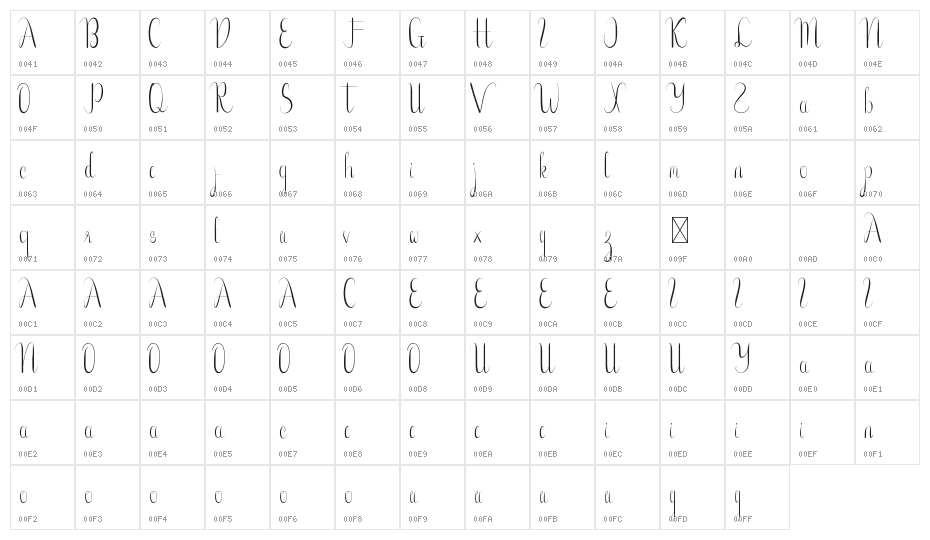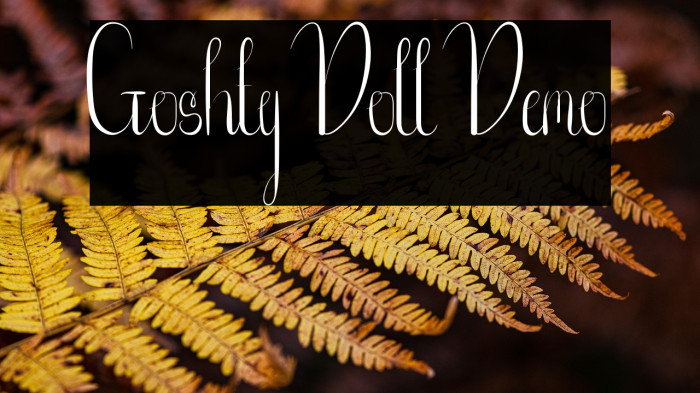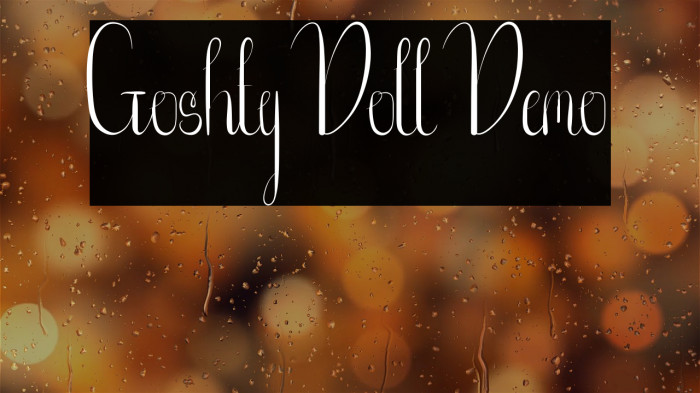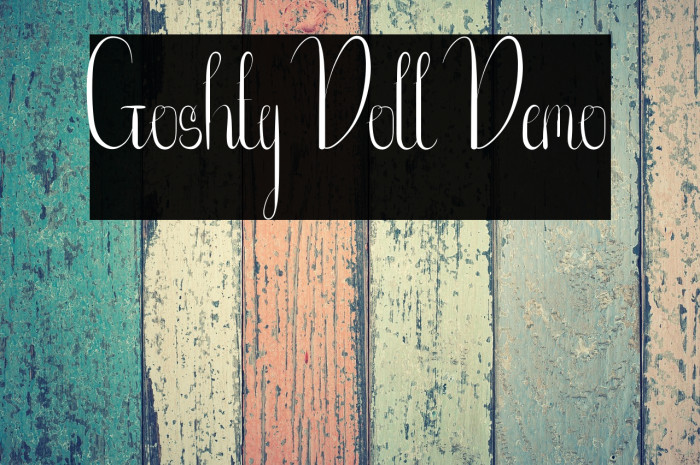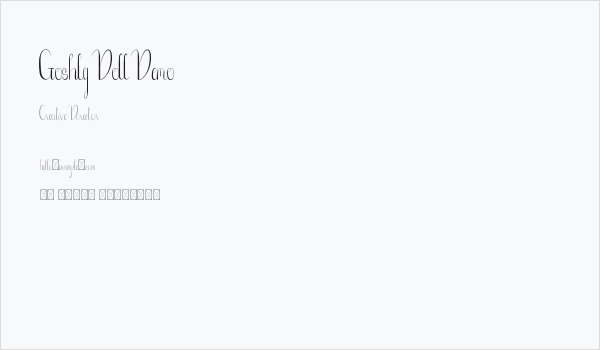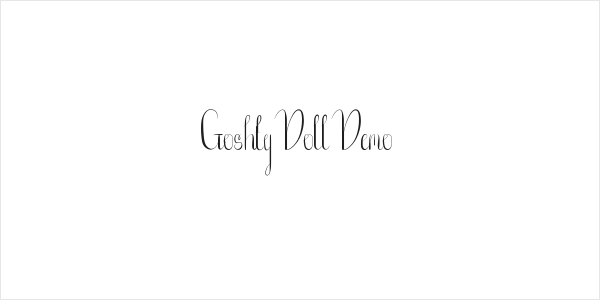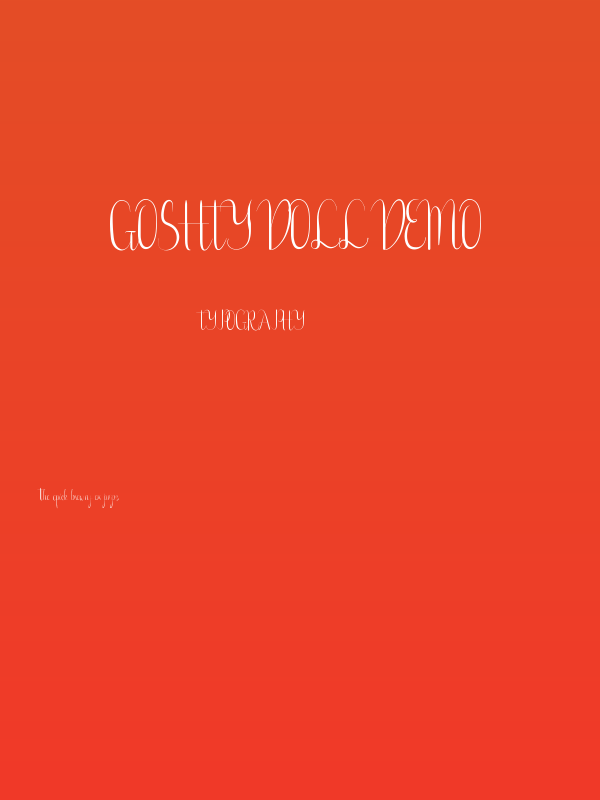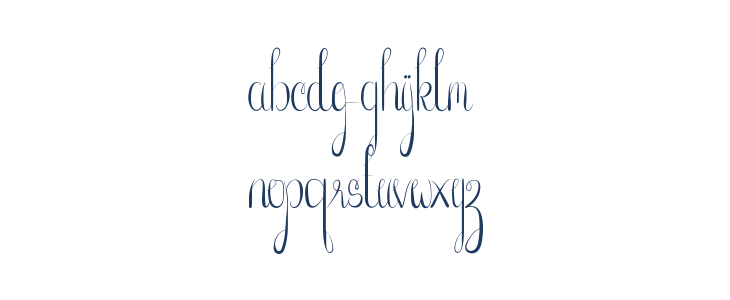
Goshty Doll Demo Font
Goshty Doll Demo Description
This font exhibits a whimsical and elegant script style, characterized by its flowing, interconnected letterforms. The uppercase letters are tall and slender, with a graceful looped design that adds a touch of sophistication. The lowercase letters maintain a consistent flow, with delicate curves and elongated strokes that enhance its decorative appeal. The font's overall design is reminiscent of calligraphy, making it suitable for projects that require a personal and artistic touch. The characters are well-spaced, ensuring readability while maintaining an artistic flair. This font is ideal for creative projects that aim to convey elegance and style.